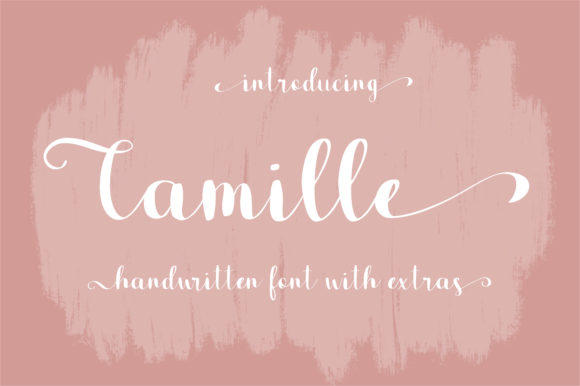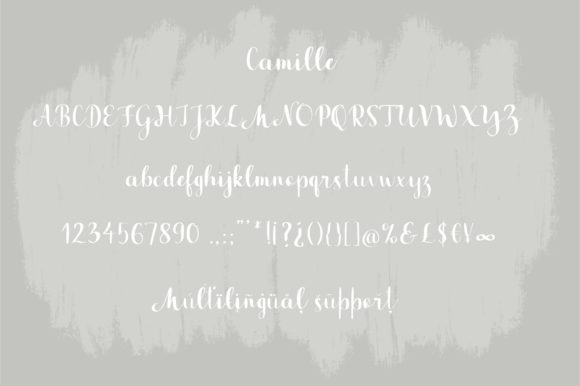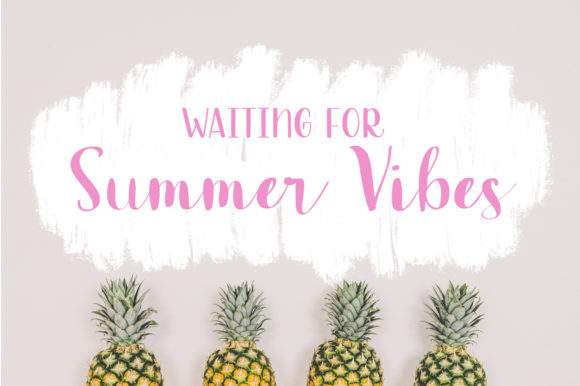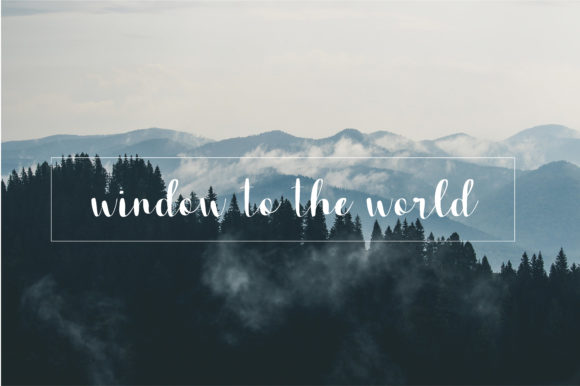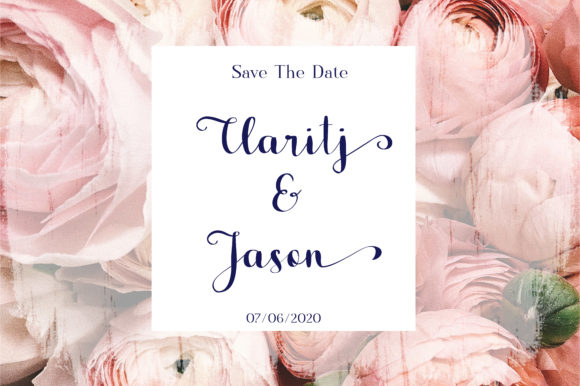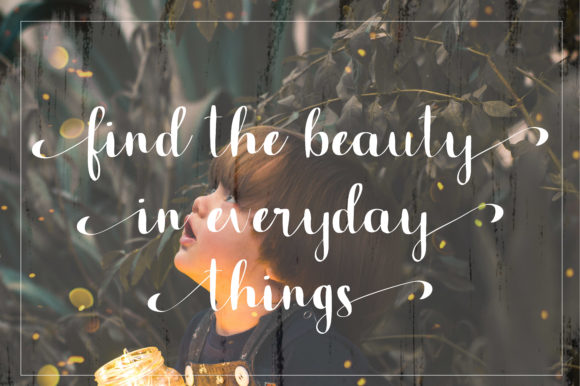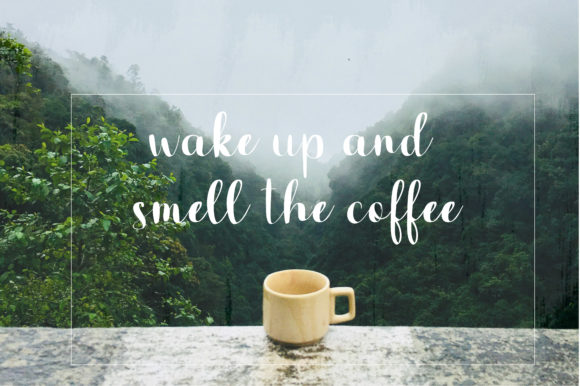
Camille Font
About Camille Font
Camille is a cute and simple brush handwritten font with a great personality. Give charm to your new projects with this lovely and adorable font.